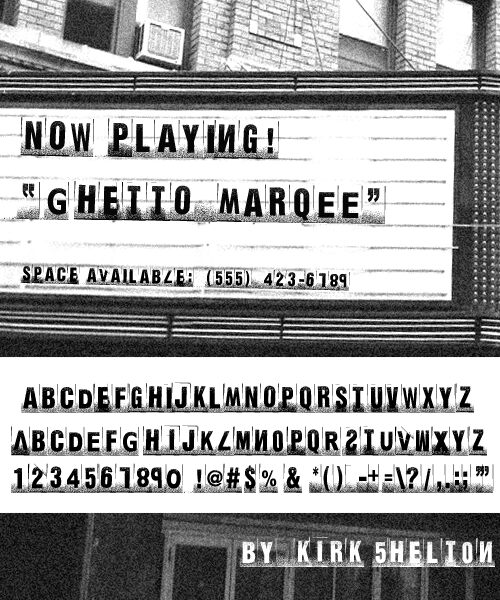
Ghetto Marquee by Kirk Shelton is a free eroded display font built from tall, blocky sans serif capitals. Its battered lower edges and scattered speckling resemble ink dragged across rough paper, yet the main letterforms remain blunt and solid.
Streetwear labels and underground music brands can use its distressed print texture for logos, posters, packaging, and merchandise. It is most convincing on concert posters and club flyers with a raw photocopied aesthetic.